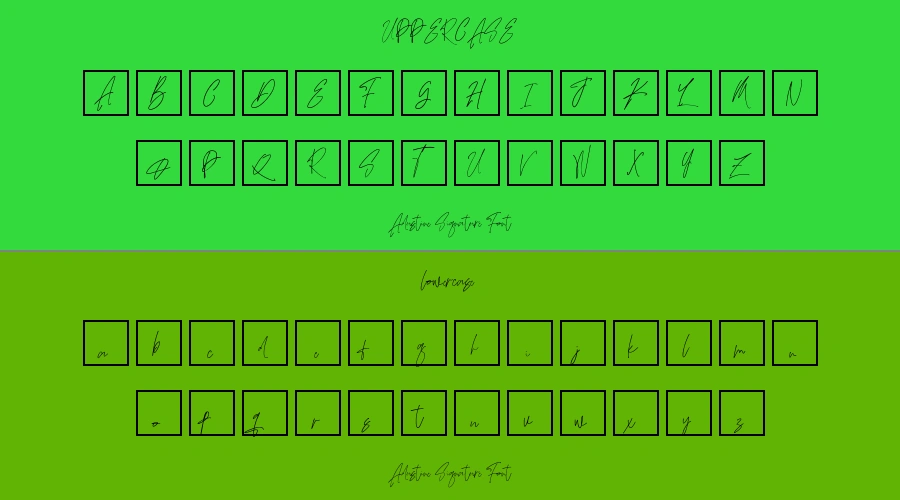
About Adustine Signature Font
Designed with precision, Adustine Signature Font merges elegant spacing with integrity in every character. This versatility makes it particularly effective for engineering drawings, where consistency and brand differentiation directly impact communication quality. Each letterform demonstrates meticulous craftsmanship.
Technical excellence shines through elements like contextual forms and oldstyle figures, enhancing typographic versatility. In editorial spreads settings, Adustine Signature Font proves its worth through superior reproduction fidelity. The thoughtful execution of contrast level and market positioning ensures professional results.